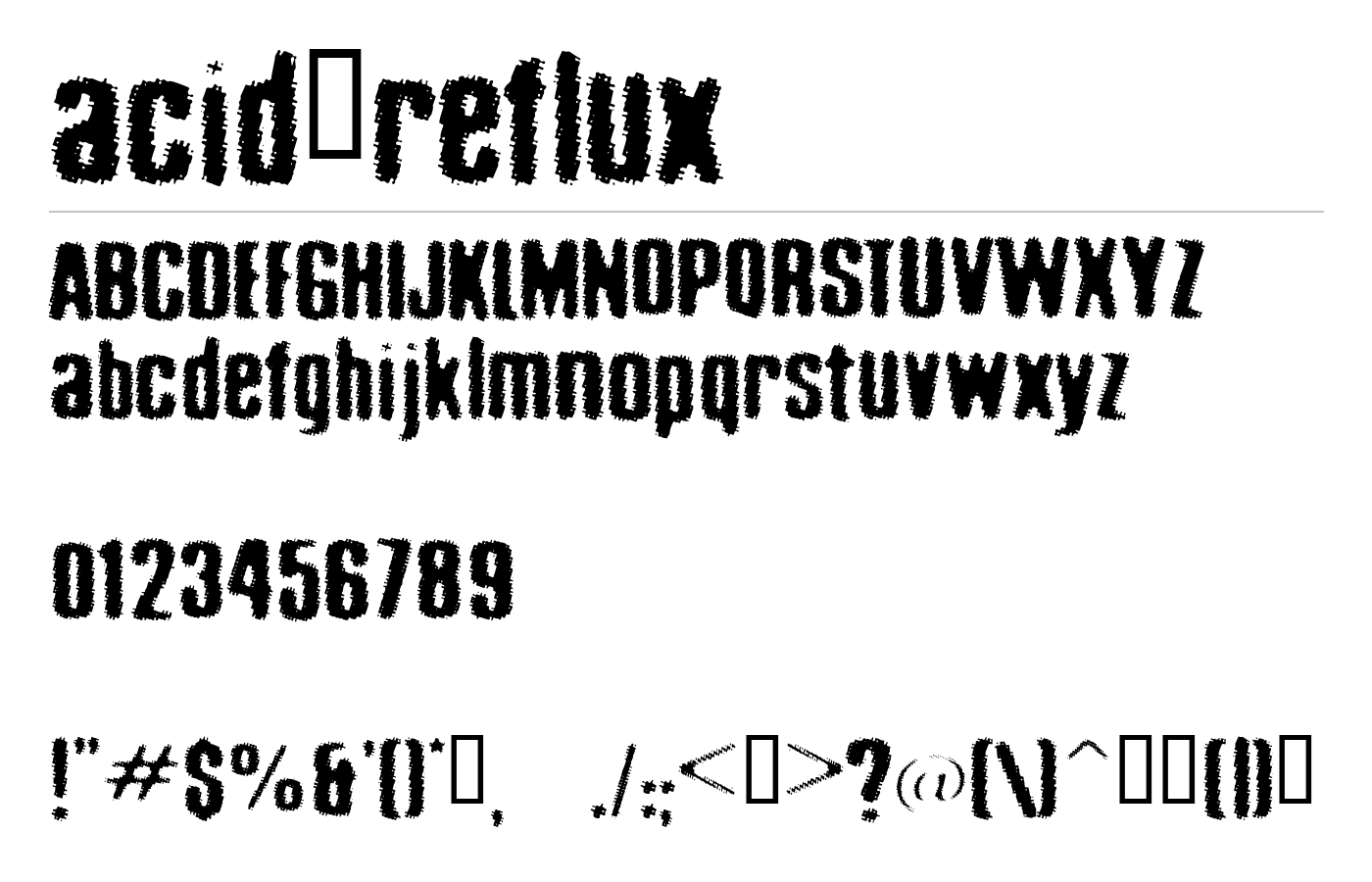
Acid Reflux is a bold, condensed sans serif font with a distressed, textured look that gives it a raw and edgy personality. Its slightly slanted letterforms and irregular, rough edges create a dynamic and intense visual style, perfect for eye-catching headlines, posters, or designs that need a gritty, rebellious vibe. This font works best in creative branding, urban-themed projects, or anywhere a strong, unconventional statement is desired.
acid_reflux Font
About acid_reflux Font